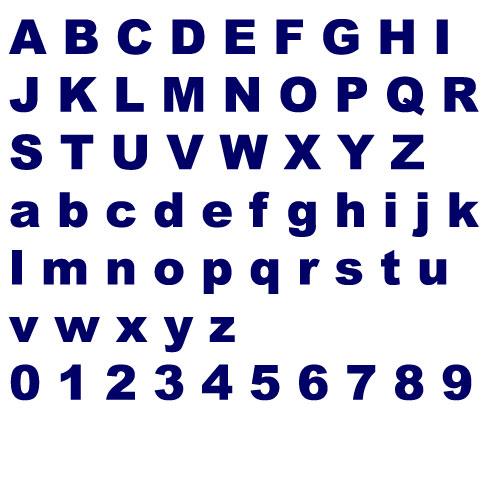
Fireside Threads is happy to present Arial Black machine embroidery font which has Thick, bold classic block machine embroidery font ideal for sturdy stitching on bags and apparel. Displayed in black, it offers high contrast for visibility. Available in PES, DST, and other formats. included. If you would like to view more embroidery fonts and alphabets please search our embroidery fonts page.